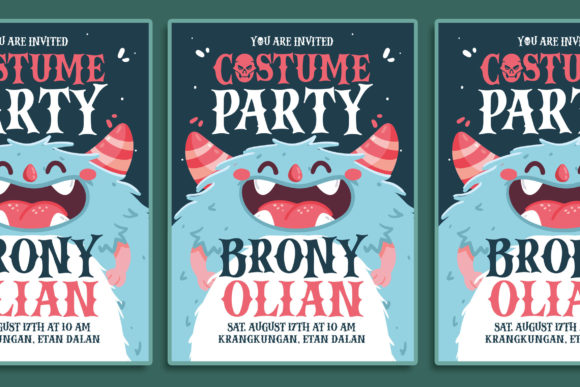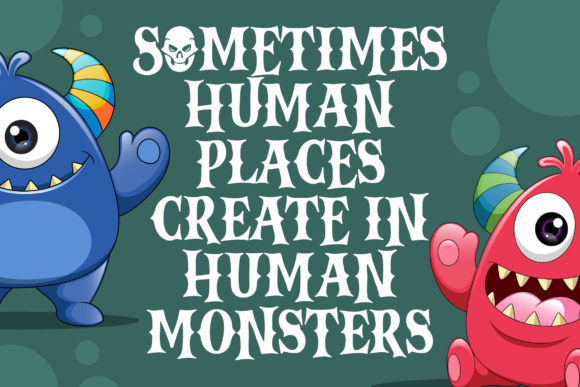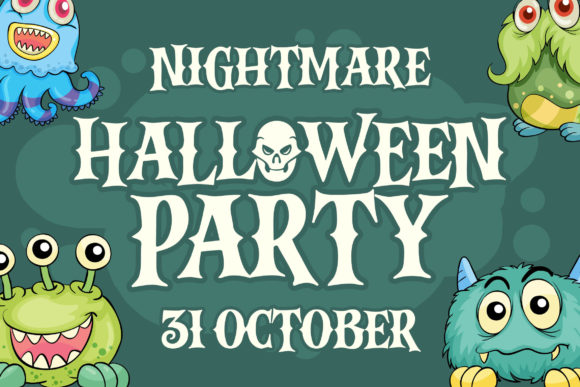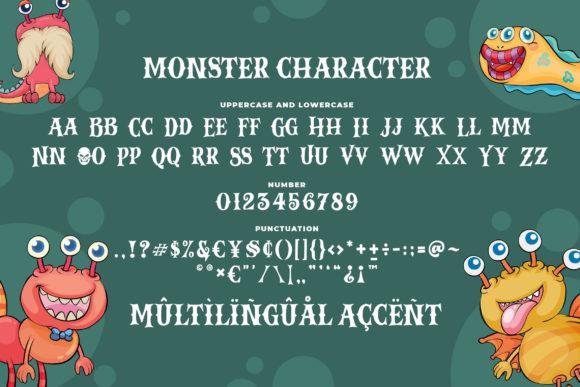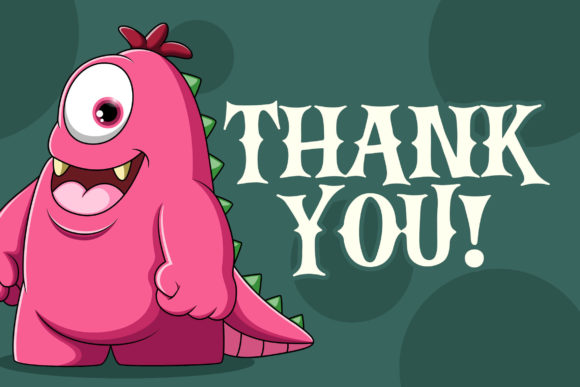
Introduction to Monster Grave Font
As the clock strikes midnight on a crisp autumn evening, the moon casts an eerie glow on your workspace. You’re brainstorming ideas for your next creative project, and the perfect font suddenly pops into your mind. You’re envisioning a spooky graveyard scene, complete with creaking tombstones and glowing jack-o-lanterns. The right font can make all the difference in bringing your design to life.
That’s where Monster Grave Font comes in – a dark, mysterious, and high-quality display font that’s sure to add a touch of macabre charm to your design. This free download is perfect for any Halloween-related project, from invitations to decorations, and its transparent background makes it easy to customize and layer with other design elements.
Key Features of Monster Grave Font
- High-quality design resource perfect for creative projects, including horror-themed graphics, posters, and more.
- Unique, spooky design elements with a transparent background for easy customization and composition.
- Comprehensive character set, including uppercase and lowercase letters, numbers, and special characters.
- Great for use in a variety of creative projects, including book covers, movie posters, and video game graphics.
Honest Review: Monster Grave Font
I recently stumbled upon the Monster Grave Font and I’m excited to share my honest thoughts with you. As a designer, I’m always on the lookout for high-quality design resources that can elevate my creative projects. This font definitely fits the bill.
- Unique and quirky design aesthetic that’s perfect for horror-themed projects or anything that needs a touch of spookiness.
- High-quality vector graphics that make it easy to resize without losing any detail.
- Transparent background, making it easy to place on any background or image.
- No bold or italic versions available, which might limit its versatility in certain projects.
The Monster Grave Font is a unique, high-quality design resource perfect for creative projects. With a transparent background, this font allows for seamless integration into any design.
To get the most out of the Monster Grave Font, use it in conjunction with other design elements, such as graphics and images. Experiment with different font sizes and colors to create a unique look.
The Monster Grave Font is perfect for a variety of creative projects, including:
- Horror-themed designs
- Spooky graphics
- Monster-themed party invitations